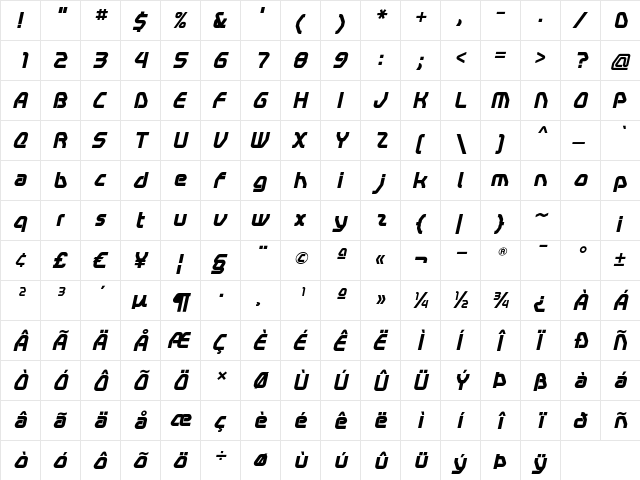
Swerve BoldItalic
Design Context for Swerve Typeface
Swerve is a composed and adaptable typeface that performs quietly and consistently across a wide range of design contexts. Its italic angle brings a sense of urgency and motion to the letterforms. Its bold stroke weight gives it real presence on the page.
Pro Tip: Use Swerve for emphasis, pull quotes, and subheadings where its slanted energy can add rhythm to the layout.